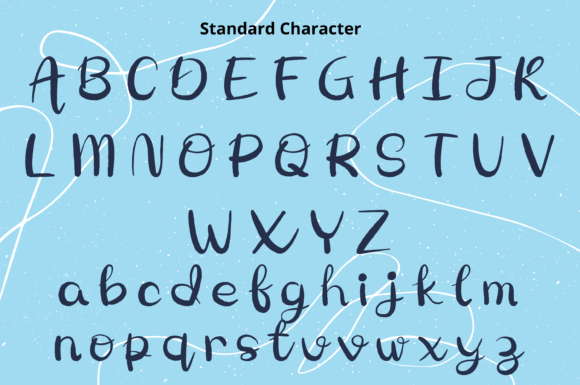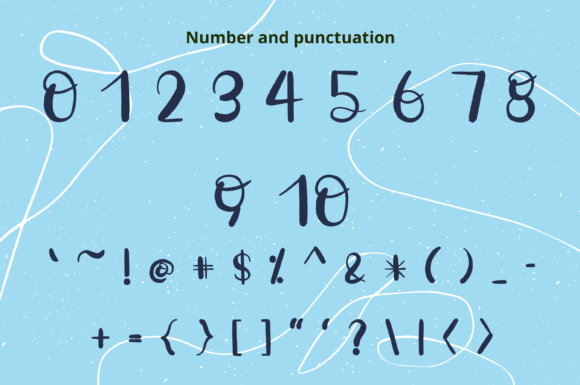
Unlock the Magic of Whimsical Design with Angel Heart Font
Have you ever been working on a design project and suddenly, a spark of creativity strikes, and you know exactly how to bring it to life? That’s what happened when I stumbled upon the Angel Heart Font. Its playful and charming vibe instantly caught my attention, and I knew I had to dive in and explore its possibilities.
The Angel Heart Font is a delightful display font that’s perfect for adding a touch of whimsy to your designs. With its elegant curves and subtle flair, it can easily elevate your projects and make them stand out from the crowd. Whether you’re a graphic designer, a social media manager, or a creative entrepreneur, the Angel Heart Font is an invaluable addition to your toolkit.
Angel Heart Font Key Features
- Font Family: Angel Heart is a unique, handwritten font designed to evoke a sense of elegance and sophistication.
- Unique Characteristics: Features a distinctive, flowing script with subtle flair and elegance, making it ideal for wedding invitations, greeting cards, and other special occasions.
- Font Style: Comes in both regular and bold styles, allowing designers to add emphasis and depth to their designs.
Designer Review: Angel Heart Font
I recently had the chance to work with the Angel Heart Font, and I must say it’s a unique and eye-catching choice. ✨ The font’s whimsical, handwritten feel is perfect for projects that need a touch of romance and elegance.
- ✨ The font’s fluidity and cursive nature make it perfect for titles, headings, and other design elements that require a sense of flow.
- ✨ The subtle imperfections in the font give it a hand-drawn feel that’s both charming and authentic.
- ✨ The font is highly customizable, allowing designers to adjust the spacing, size, and style to fit their project’s needs.
- ⚠️ The font may not be suitable for body text or large blocks of text, as its cursive nature can make it difficult to read.
- ⚠️ The font’s customization options can be overwhelming for designers who are new to font customization.
Overall, I’m impressed with the Angel Heart Font’s potential, but I do think it’s best suited for specific design projects that require a touch of whimsy and romance. With a little practice and patience, designers can unlock the font’s full potential and create truly stunning designs.
For optimal use, pair the Angel Heart font with a neutral background and bold accent colors. It is commonly used in:
– Baby shower decorations and gifts
– Romance-themed posters and graphics
– Vintage-inspired designs and illustrations